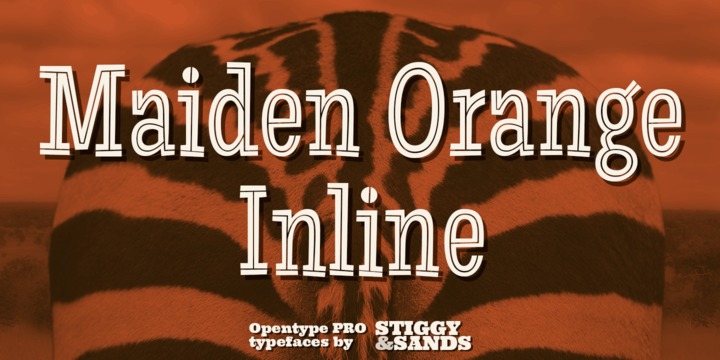
Maiden Orange Inline Pro
by Stiggy & Sands
A festive spin off our Maiden Orange Pro typeface, Maiden Orange Inline Pro comes packed with all of the features of the original Maiden Orange Pro typeface, but adds a little more visual flavor with hand drawn inline cuts, leaning even more towards the custom hand lettered 1950’s advertisements that inspired the original.
Clean and legible, while also being offbeat and friendly, this font lends itself to a wide variety of uses. The SmallCaps and extensive figure sets offer a slightly more serious tone as well as a wider range of design use.